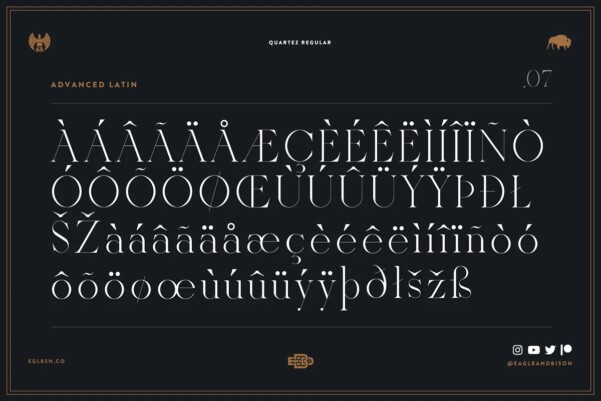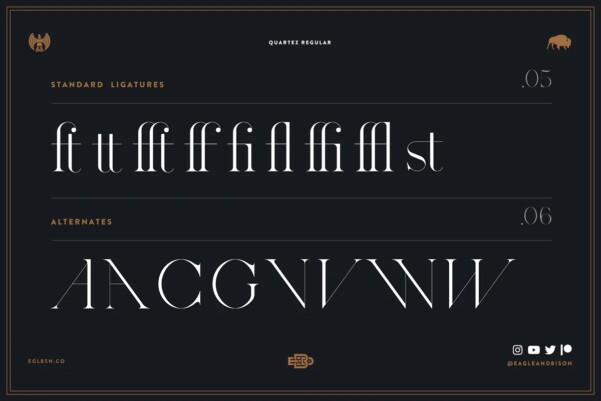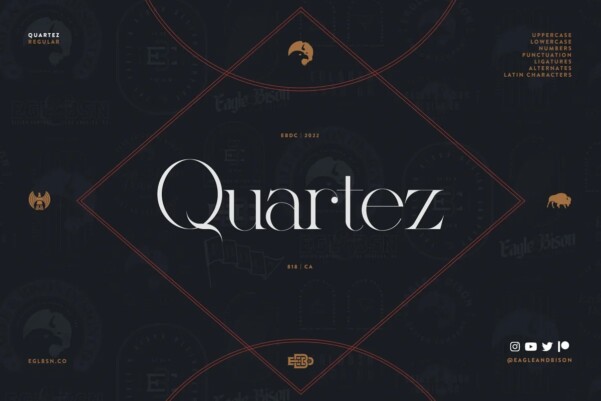
Quartez Font
Quartez Font is the latest font release from the Eagle & Bison Design Company. Each character was carefully hand-crafted with elegance and legibility in mind.